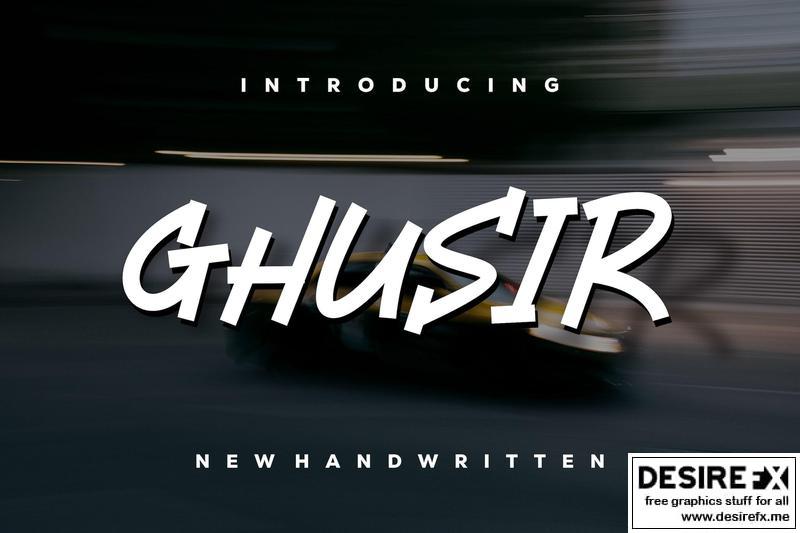
Introducing our new product Ghusir Font Modern Font
Ghusir Font – Ghusir Font is an elegant and authentic display font. This font is suitable for any branding projects such as logos, t-shirt printing, esport and many more. extraordinary in many contexts.